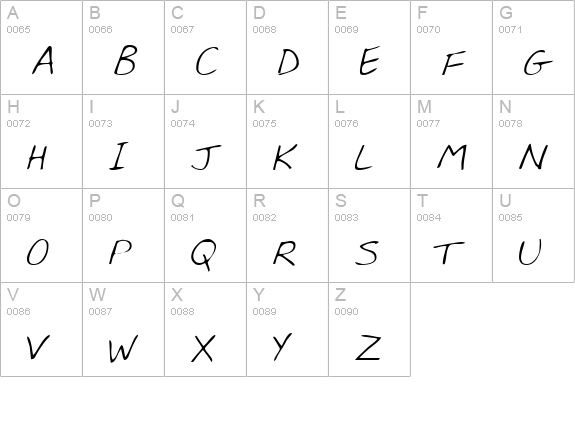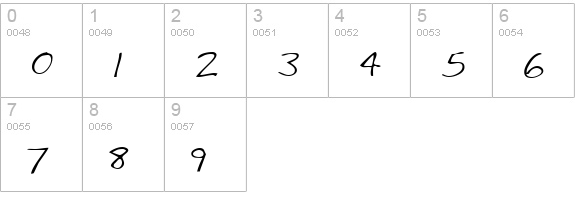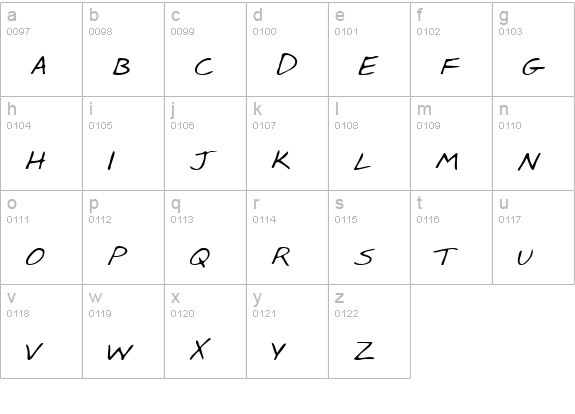
BabcocksHand Regular Font Details
BabcocksHand Regular is the standard, neutral variant in the BabcocksHand typeface family \xE2\x80\x94 well suited to general body text, paragraphs, and standard typographic work.
BabcocksHand Regular font is a beautiful and versatile typeface that adds a touch of elegance and sophistication to any design project. With its smooth curves and graceful strokes, this font captures the essence of handwritten script while maintaining a distinct and legible appearance. What sets BabcocksHand Regular font apart is not only its aesthetic appeal but also its accessibility. This font is available for free, allowing designers and enthusiasts alike to incorporate its timeless charm into their creations without any financial constraints. Whether you're working on branding, invitations, or any other creative endeavor, BabcocksHand Regular font is the perfect choice for adding a personal and artistic touch. Downloading this font is a breeze, as it can be freely obtained at FontsMarket.com. This user-friendly platform offers a vast collection of fonts, making it easy to find and acquire the typefaces that best suit your needs. By providing BabcocksHand Regular font for free, FontsMarket.com ensures that designers of all backgrounds can access and utilize this stunning font to its fullest potential. So, if you're looking to elevate your designs and make a lasting impression, look no further than BabcocksHand Regular font. Download it for free at FontsMarket.com and let its timeless beauty transform your projects into works of art.